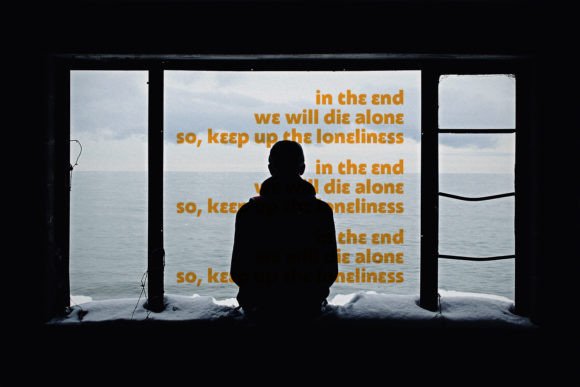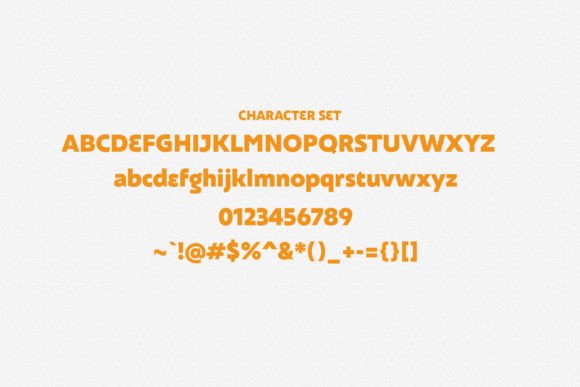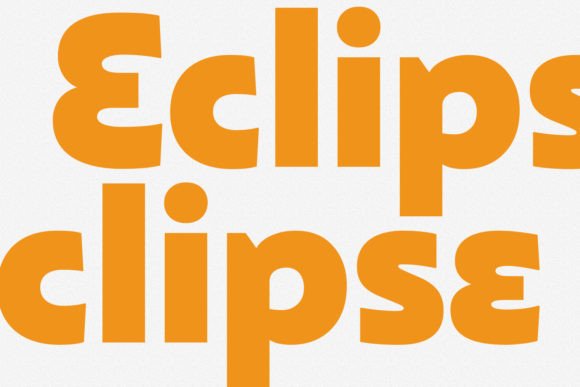
The Font that Demands Attention: Crigo Font
Have you ever stared at a blank page, trying to come up with the perfect headline or logo? The cursor blinks, and your mind goes blank. Suddenly, an idea strikes, and you envision a bold, eye-catching design that grabs the audience’s attention. This is exactly the kind of creative spark that the Crigo Font is designed to ignite.
Crigo Font is a powerful display font that commands attention with its assertive shapes and strong lines. Whether you’re working on a branding project or creating a stunning headline, Crigo Font offers the perfect balance of flexibility and striking presence. With a range of weights, from light to black, this versatile font is a valuable tool for designers seeking to add a modern and powerful touch to their designs.
By incorporating Crigo Font into your design arsenal, you’ll be able to elevate your projects and leave a lasting impression on your audience. Whether you’re a seasoned designer or just starting out, Crigo Font is an essential addition to any design toolkit.
Key Features of Crigo Font
- Font Family: Crigo is a sans-serif font family with multiple weights, from Light to Black.
- Character Set: Crigo Font supports a wide range of languages, including Latin, Cyrillic, and Greek alphabets, with over 2000 glyphs.
- Size: The font family consists of 10 weights, ranging from 100 to 900, providing flexibility for various design applications.
- Unique Characteristics: Crigo Font features a distinctive, futuristic aesthetic with a strong emphasis on legibility and readability, making it an excellent choice for modern designs.
Review of Crigo Font
As a designer, I’ve had the chance to work with a wide range of fonts, and Crigo Font is one that caught my attention. Here’s my honest review:
- Unique aesthetic: Crigo Font has a distinctive look that sets it apart from other fonts. Its modern design makes it perfect for creative projects.
- Legibility: Despite its quirky design, Crigo Font is surprisingly easy to read, making it a great choice for body text.
- Limited language support: Crigo Font is only available in a few languages, which may be a limitation for projects requiring multilingual support.
- Not ideal for small text: Due to its design, Crigo Font may not be the best choice for small text sizes, as it can become difficult to read.
Overall, I think Crigo Font is a great addition to any designer’s toolkit. Its unique aesthetic and legibility make it a great choice for creative projects. However, its limited language support and potential issues with small text sizes are worth considering. With these limitations in mind, I would recommend Crigo Font for projects that require a distinctive, modern look.
Crigo Font is ideal for:
- Modern and minimalist designs
- Digital marketing materials
For best results, use Crigo Font in combination with bold, bright colors and clean lines.